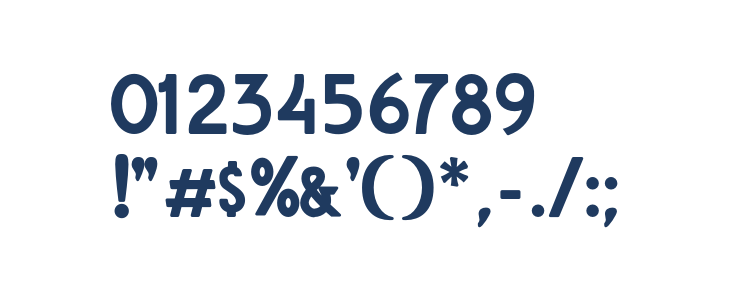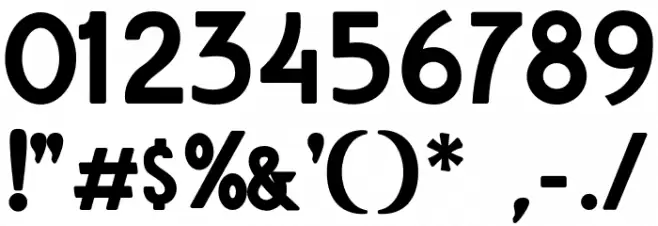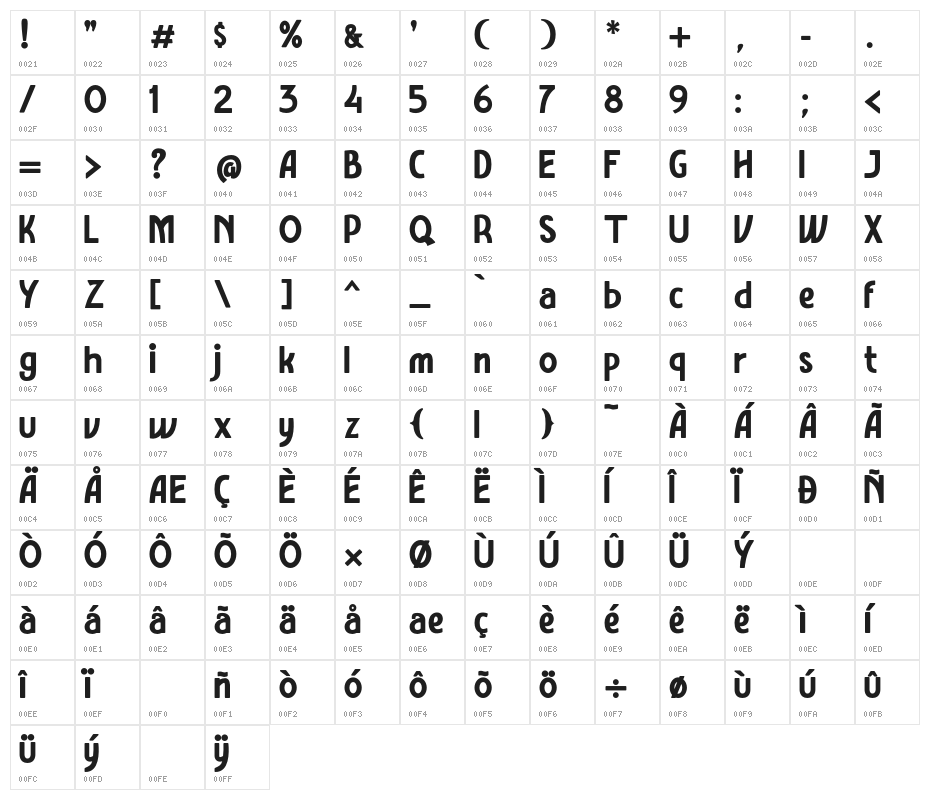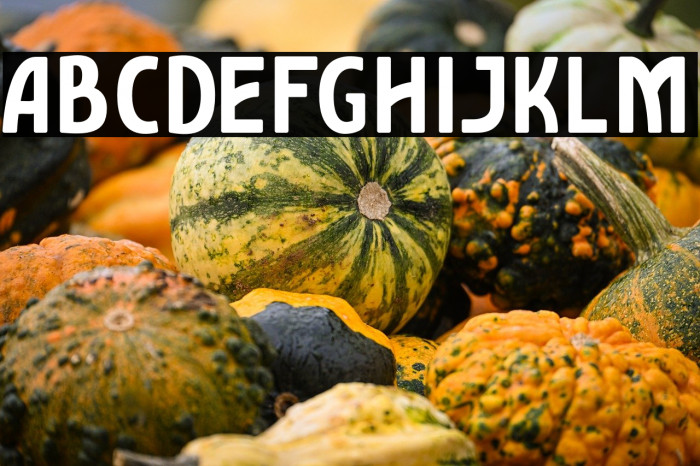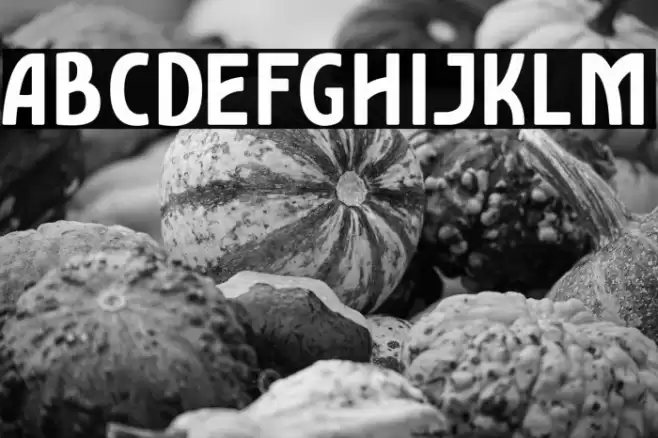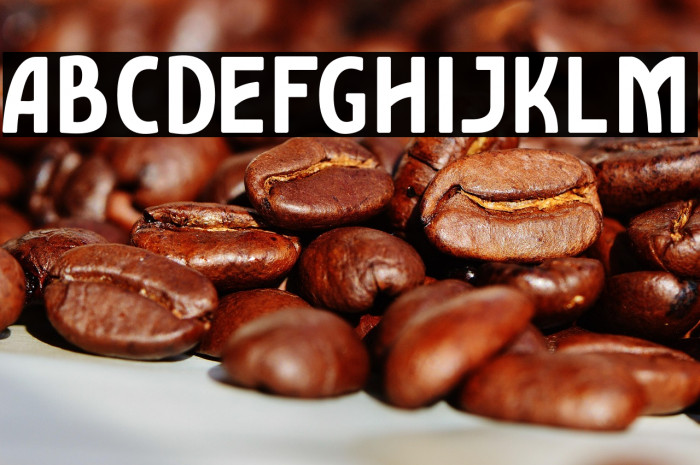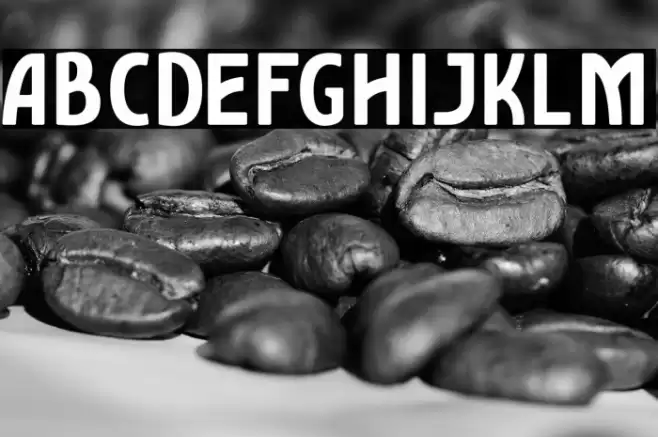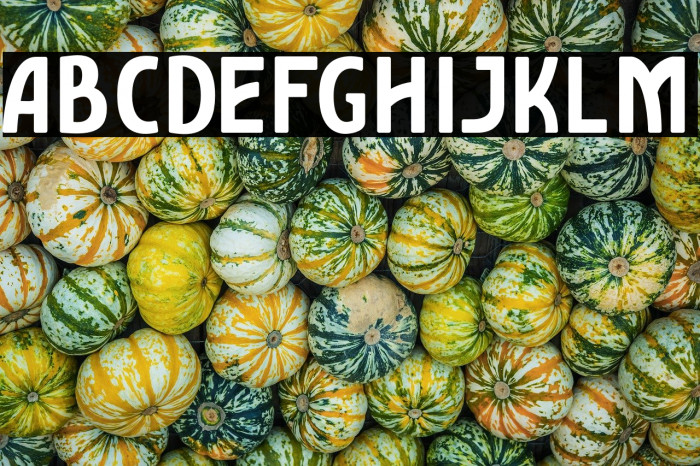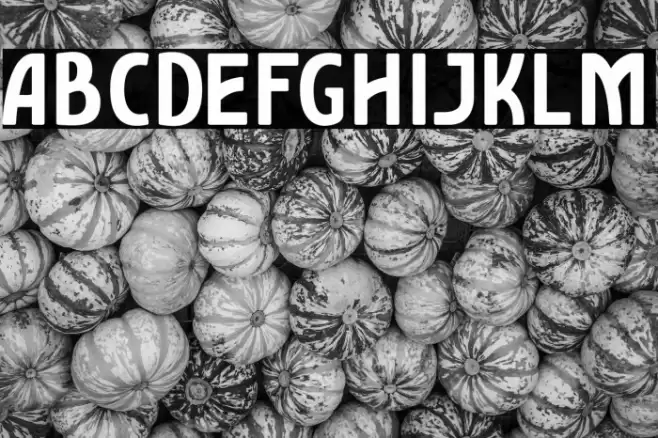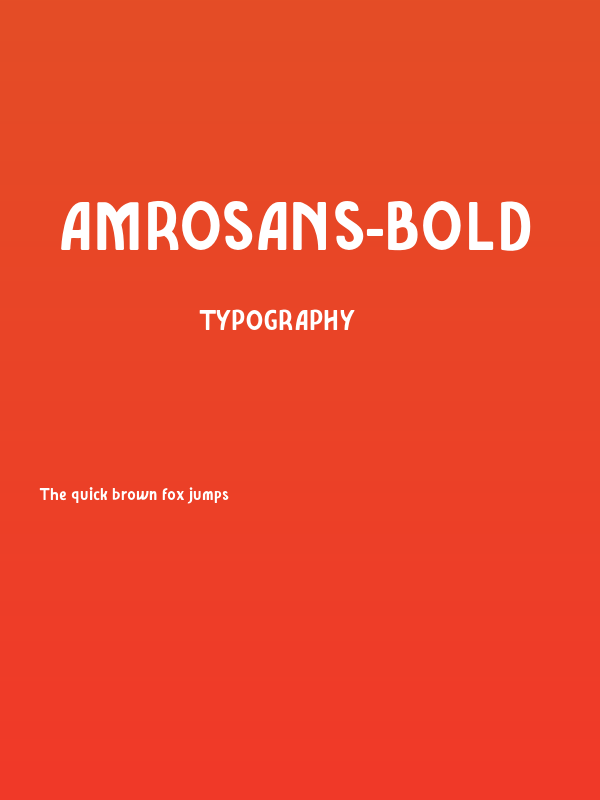
AmroSans-Bold Font
AmroSans-Bold Description
This font features a bold and rounded sans-serif style, characterized by its smooth curves and uniform stroke width. The letters are well-proportioned, with a slightly condensed appearance that maintains readability. The uppercase letters are tall and commanding, while the lowercase letters have a friendly and approachable feel. The numerals are consistent with the overall design, offering clarity and balance. Special characters are distinct and integrate seamlessly with the alphabet, enhancing the font's versatility.
| Proposed Projects | Ideal for branding, signage, and headlines where a modern and approachable look is desired. |